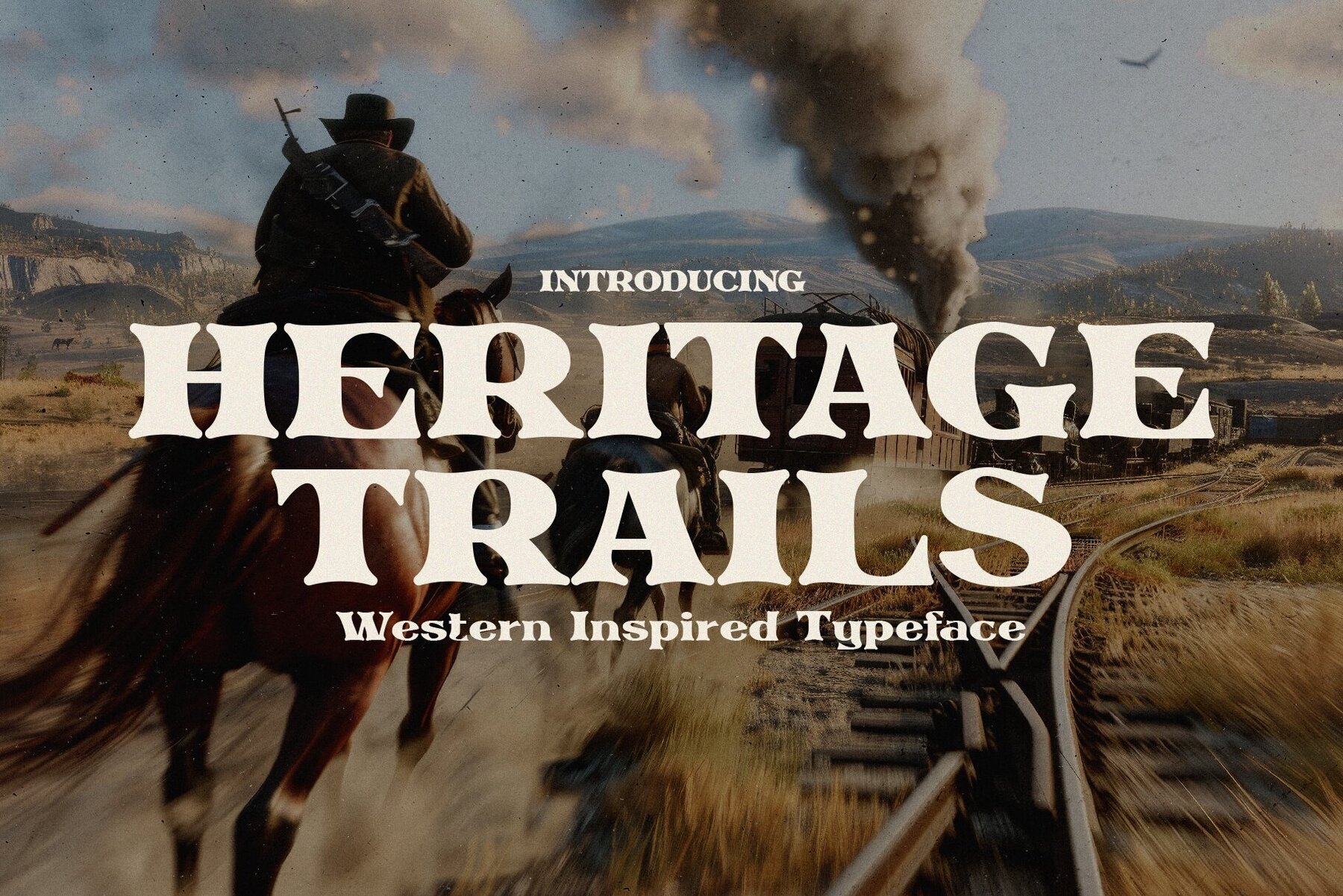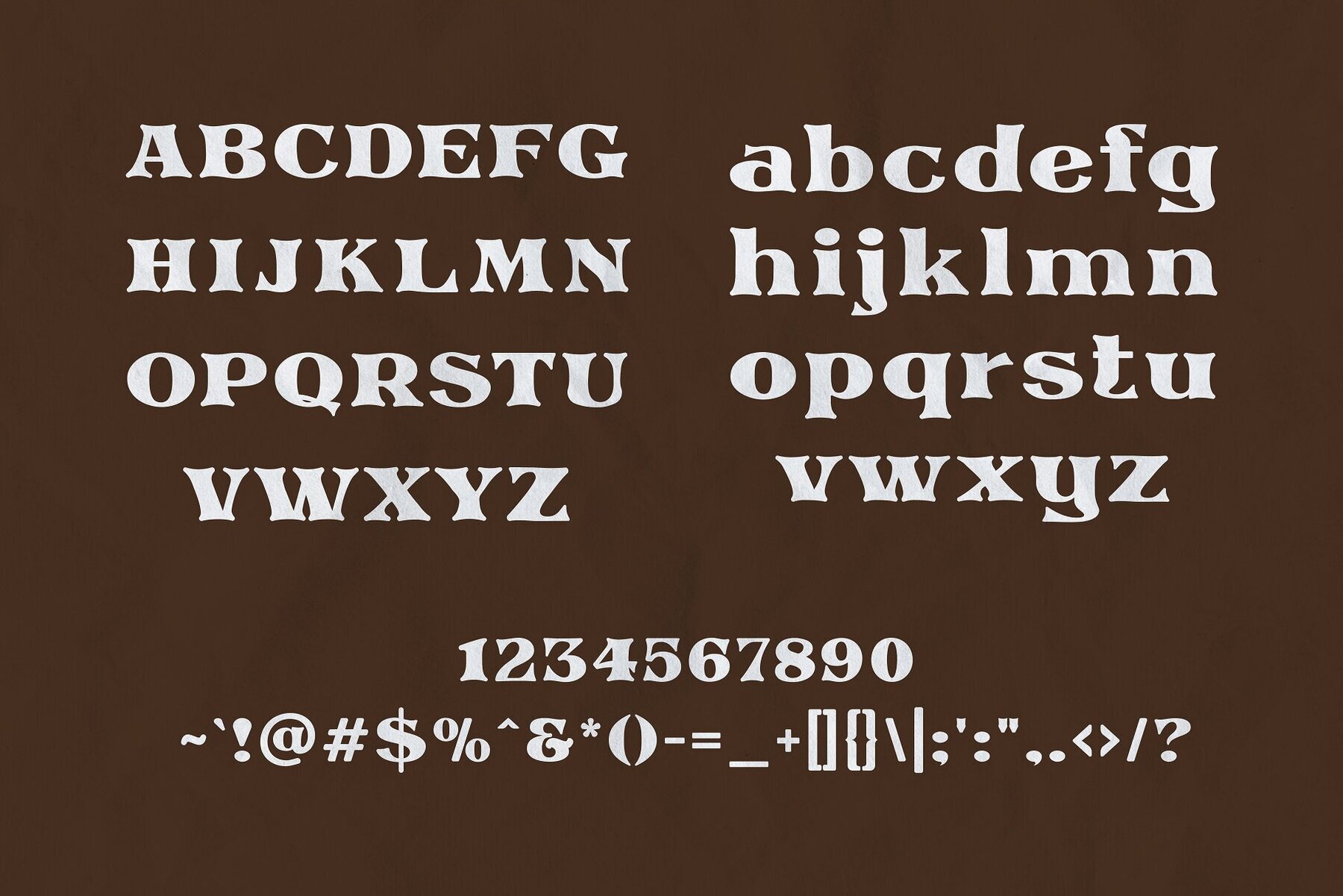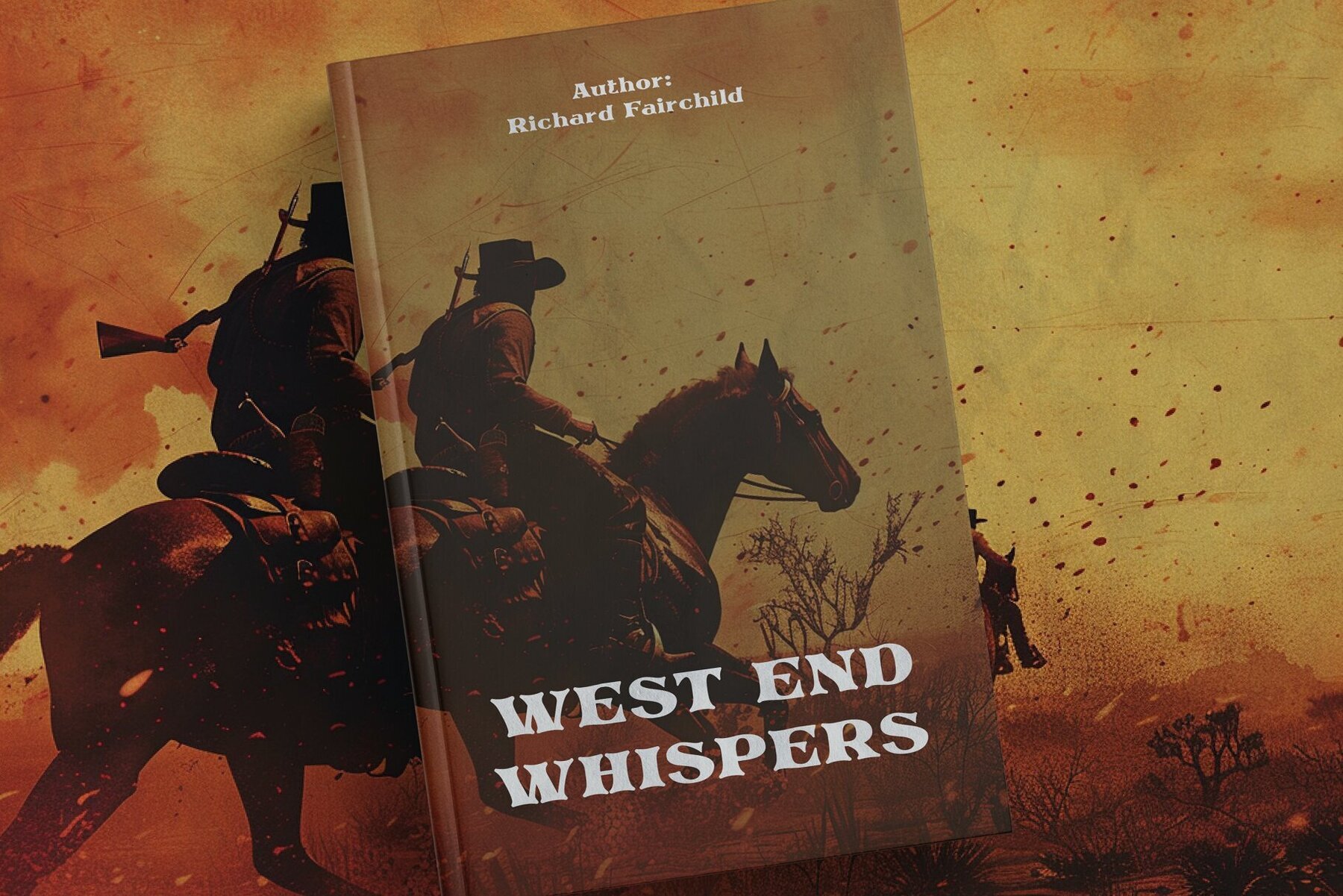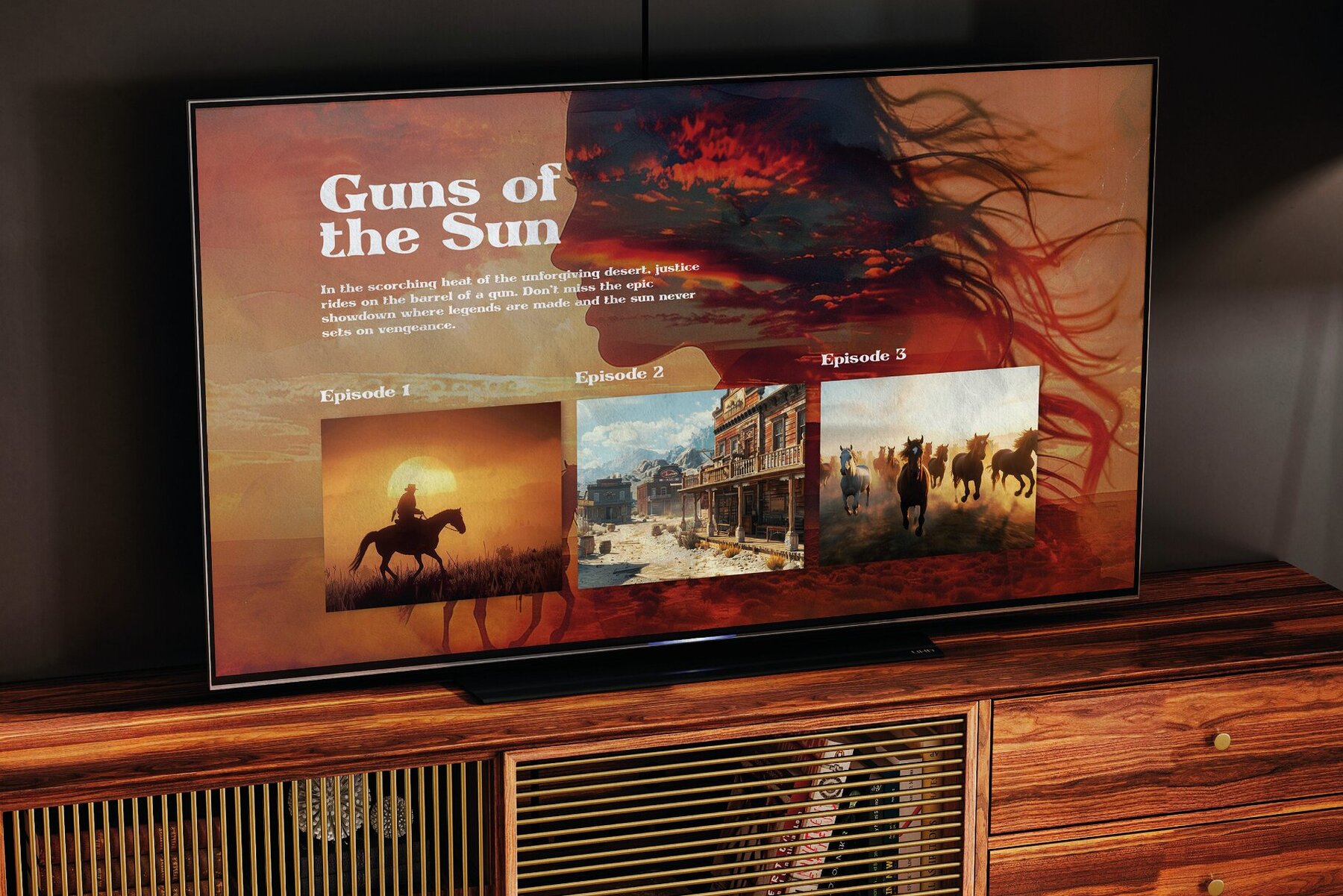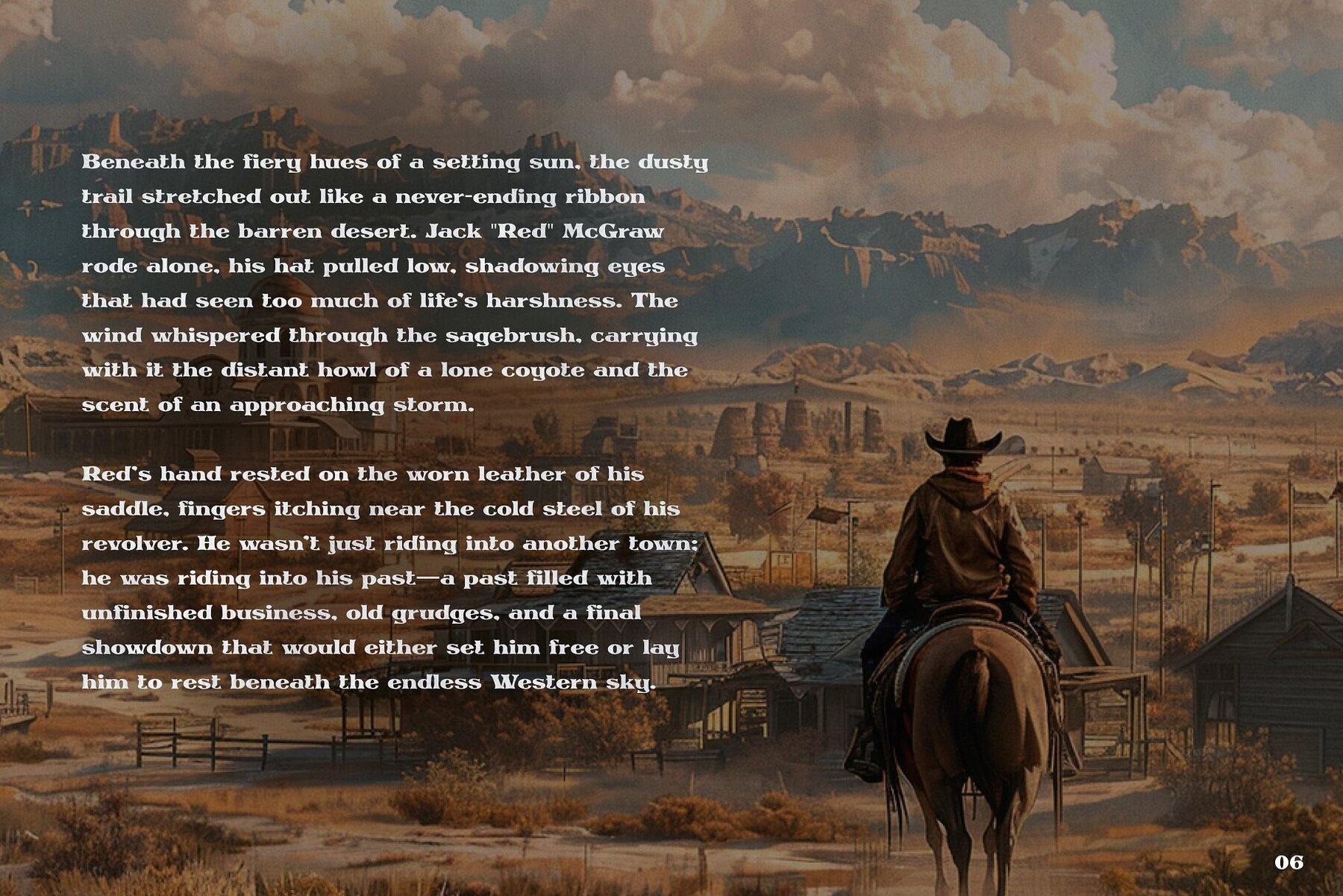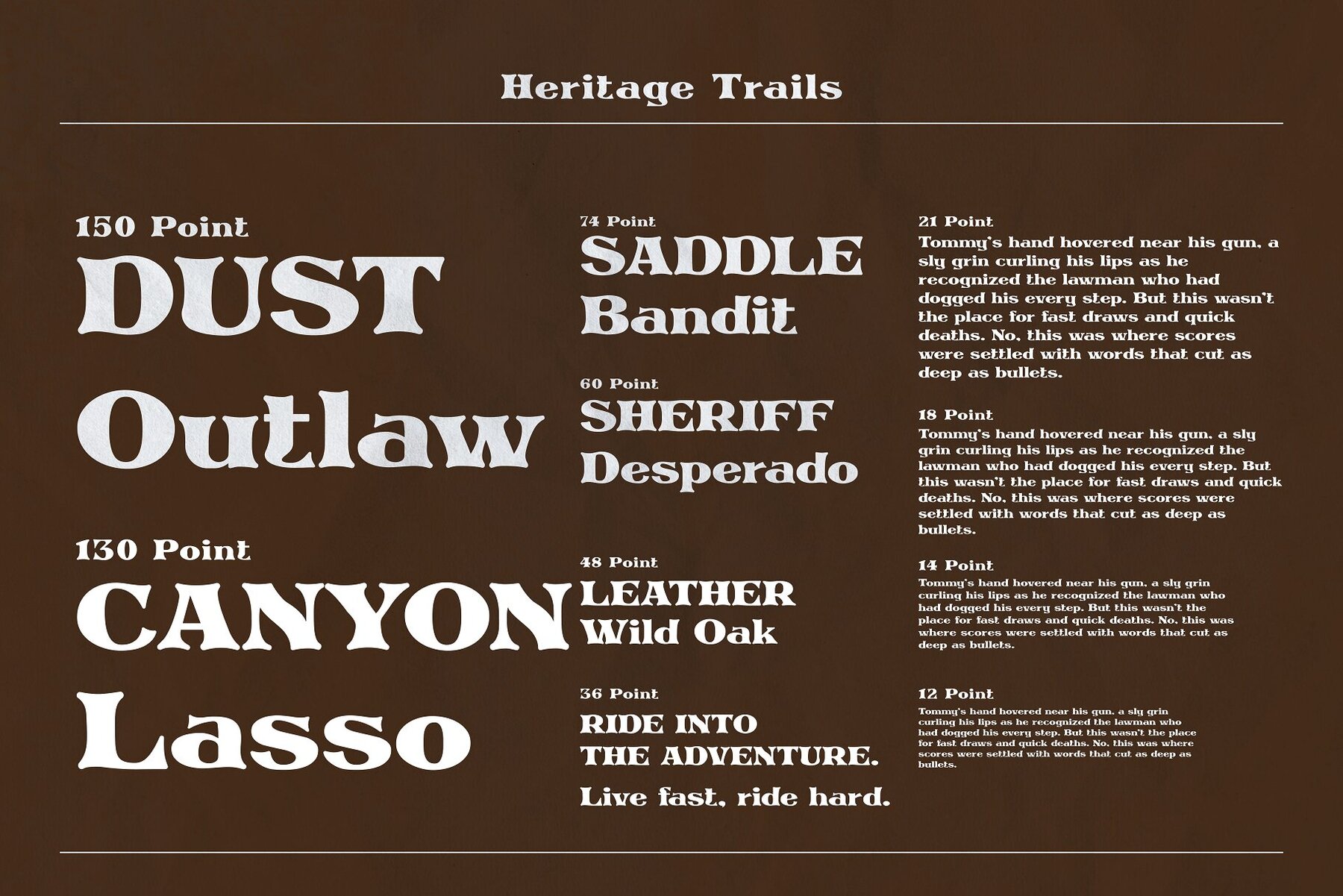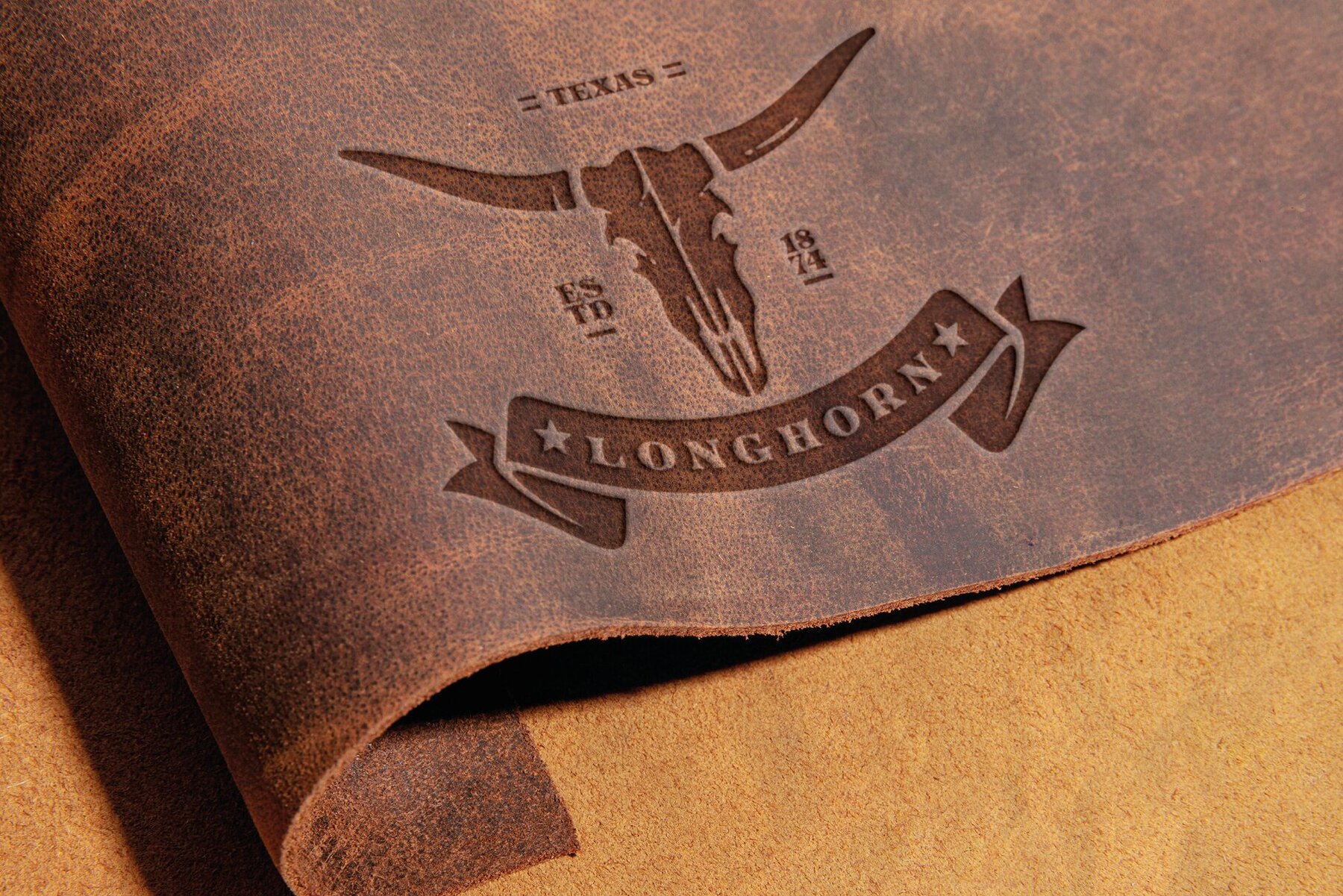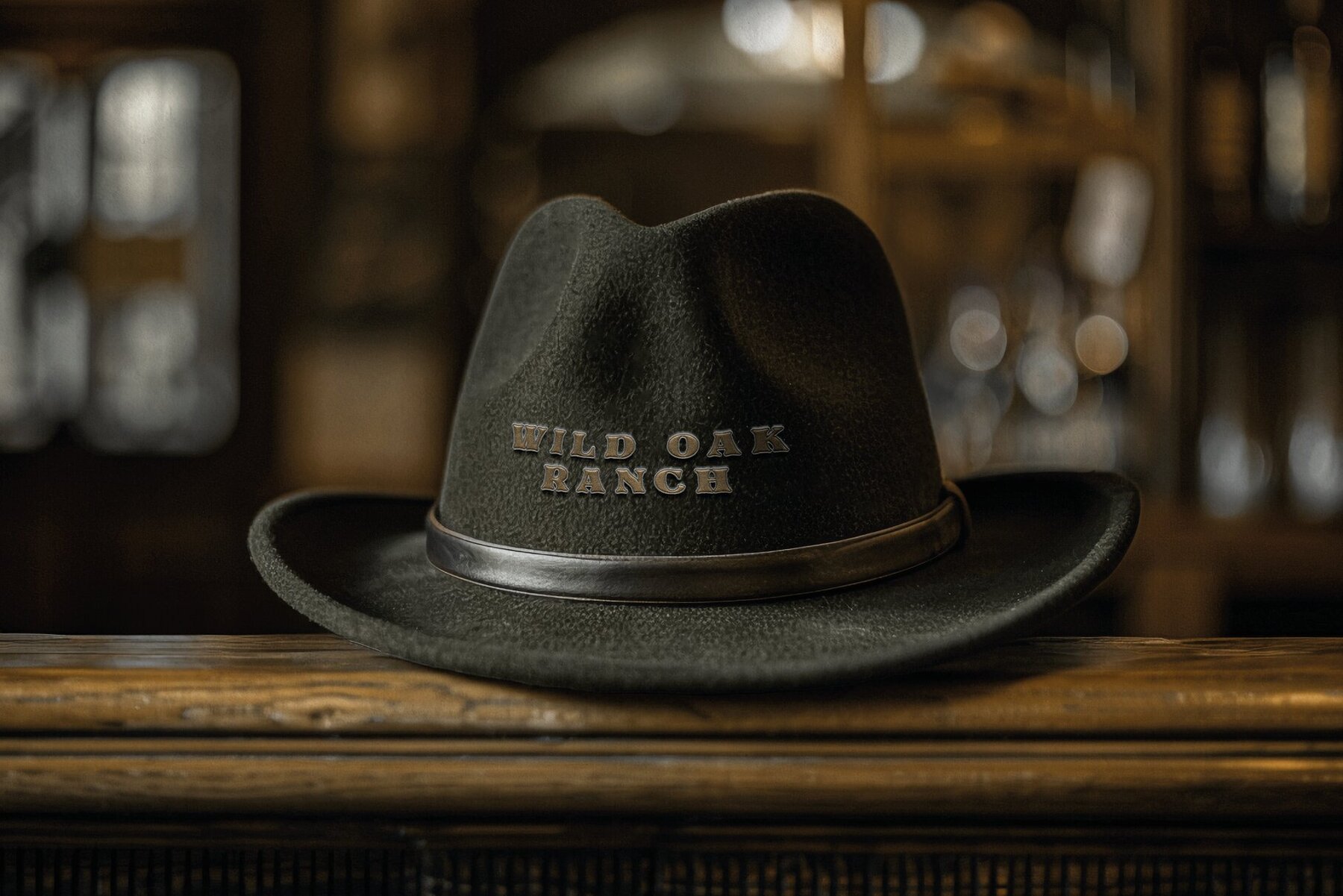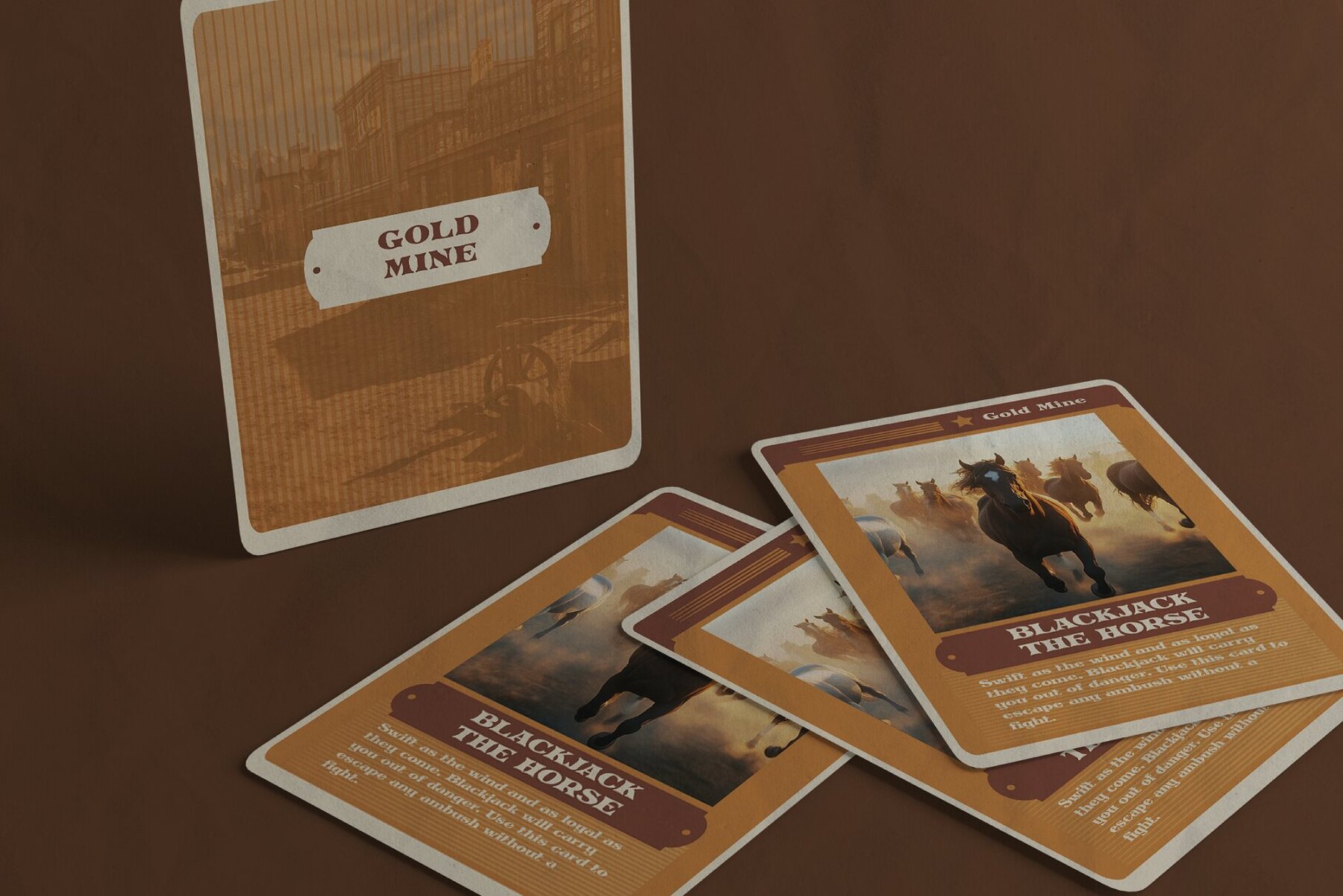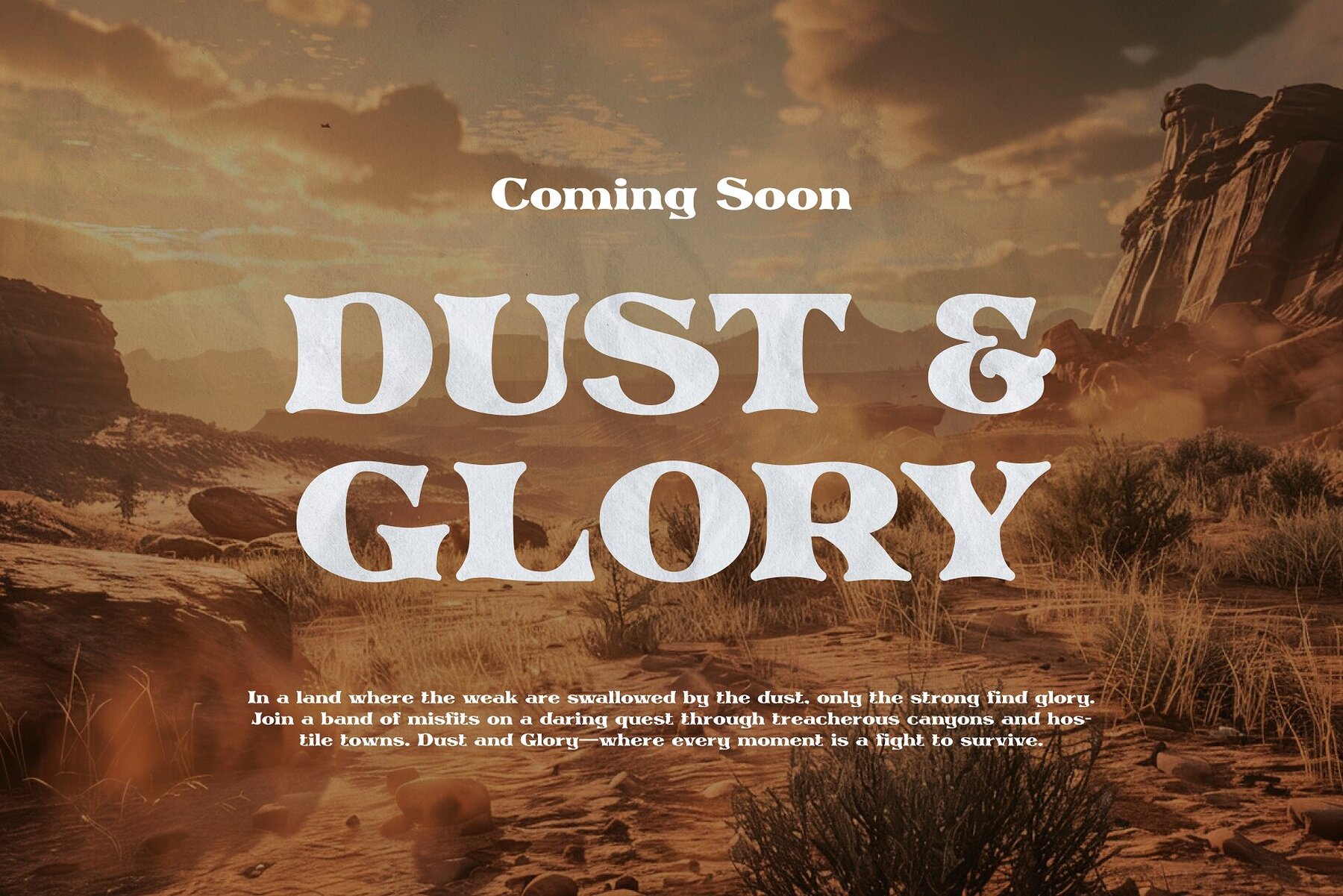
Heritage Trails Font
Heritage Trails
Introducing Heritage Trails, a typeface that transports you back to the untamed heart of the Wild West. With every curve and line, this hand-drawn font captures the raw, rugged essence of a bygone era, where the frontier was wild, and every trail told a story. Heritage Trails is more than just a typeface—it's a journey through time, evoking the weathered signs of old saloons, the hand-painted posters of traveling shows, and the dusty trails that led to adventure. Perfect for projects that demand authenticity and character, this font brings the spirit of the Wild West to life with an organic, handcrafted feel that’s true to the times. Saddle up and let Heritage Trails be your guide as you carve out designs that are as legendary as the frontier itself!